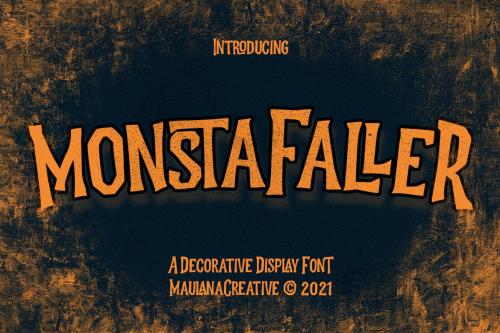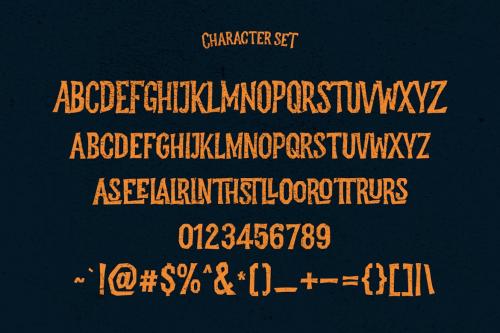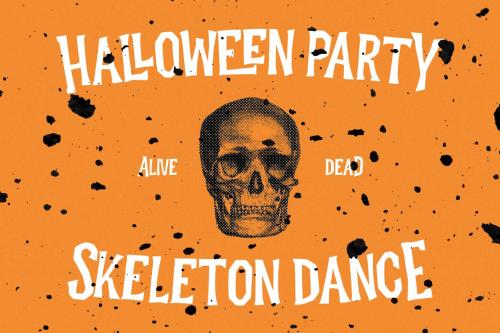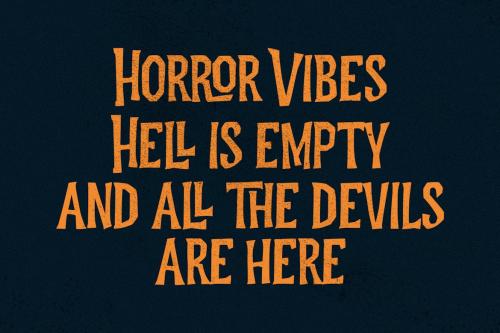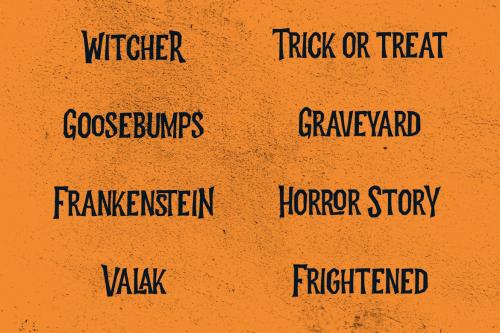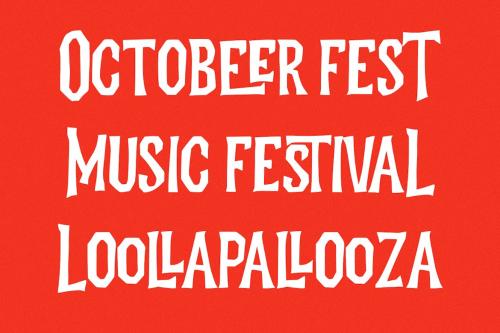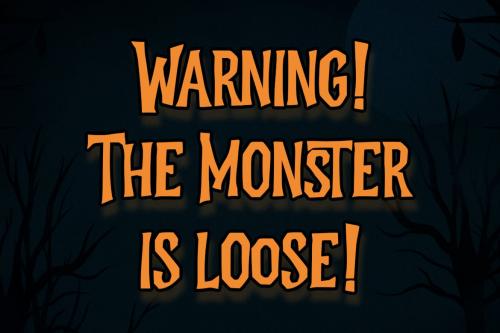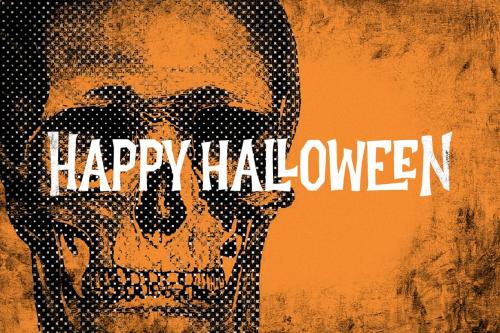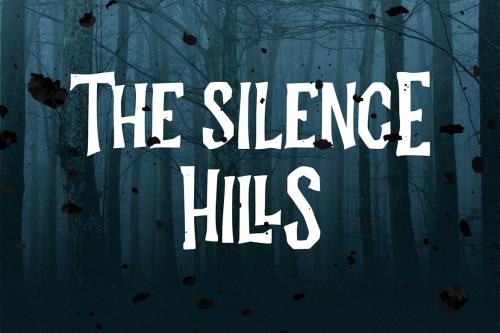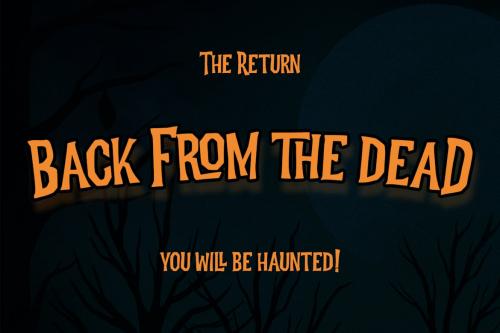
Monsterfall Display Font
Monstafaller Display Font
Monstafaller is a Horror Vibe Decorative display font. With Bold Sharp stroke, Upright and fun character with a bit of ligatures. To give you an extra creative work. Monstafaller font support multilingual more than 100+ language. This font is good for logo design, Social media, Movie Titles, Books Titles, a short text even a long text letter and good for your secondary text font with Script. Make a stunning work with Monstafaller font.